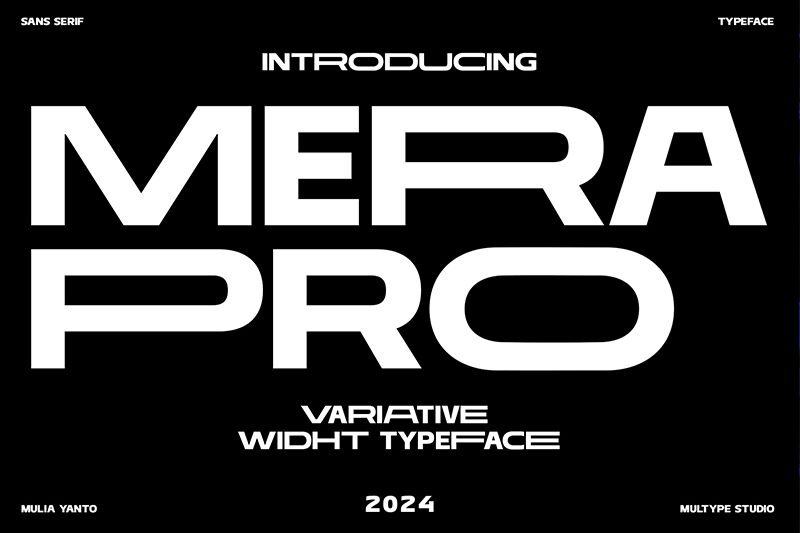
Mera Pro
Mera Pro font designed by Multype Studio is a free sans serif font designed with inspiration from geometric shapes and their role in modern designs. Although classic to some extent, the font has a bold weight and expanded width that give it a strong visual effect when used on its own or paired with other fonts.
Use Mera Pro for branding design projects where elaborate logotypes and icons can come to life. The font can also be used for contemporary web designs, mobile apps, social media posts, website headers, magazine titles, book covers, newspaper headlines, flyers of all sorts as well as poster designs.